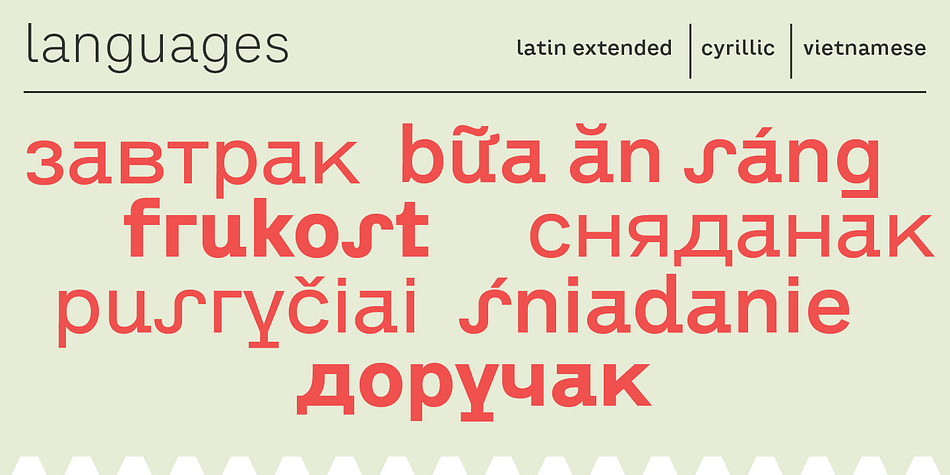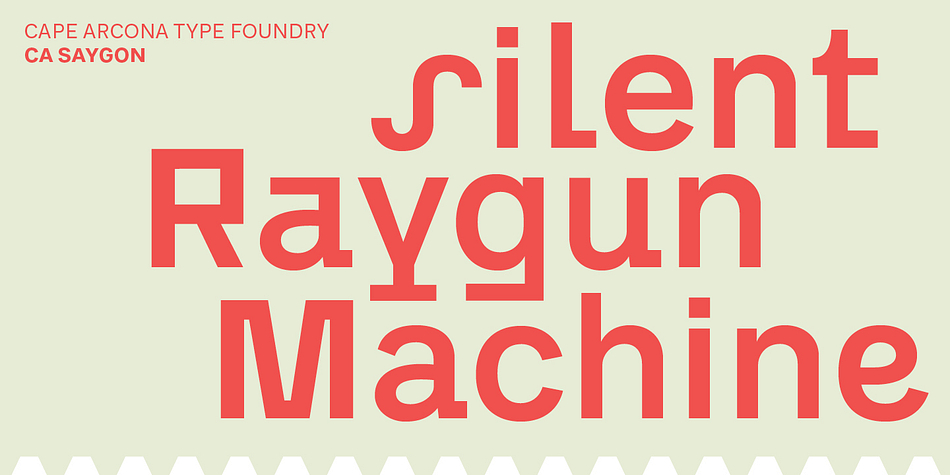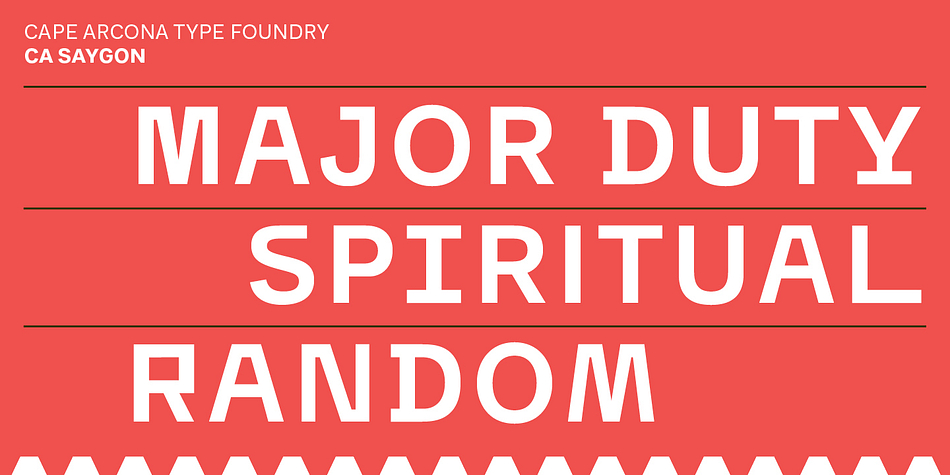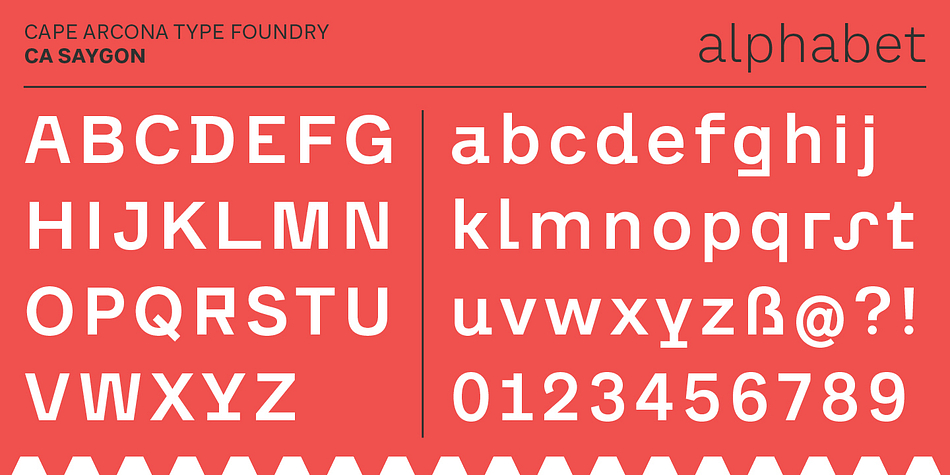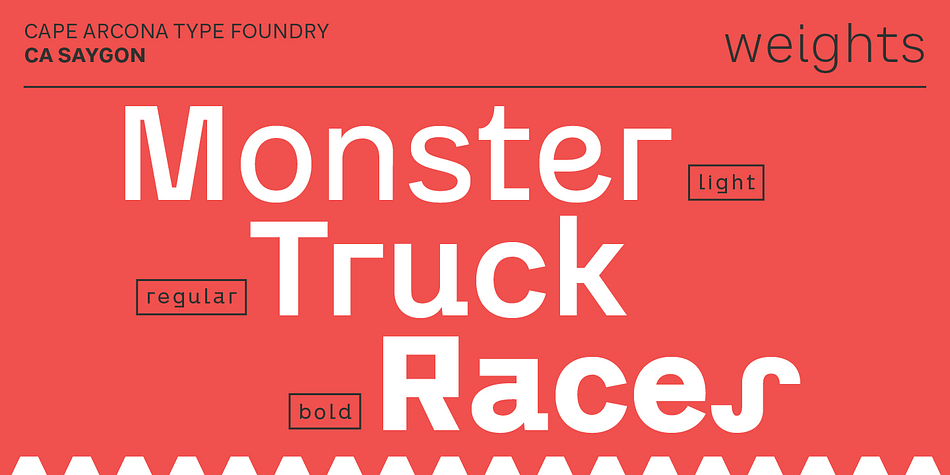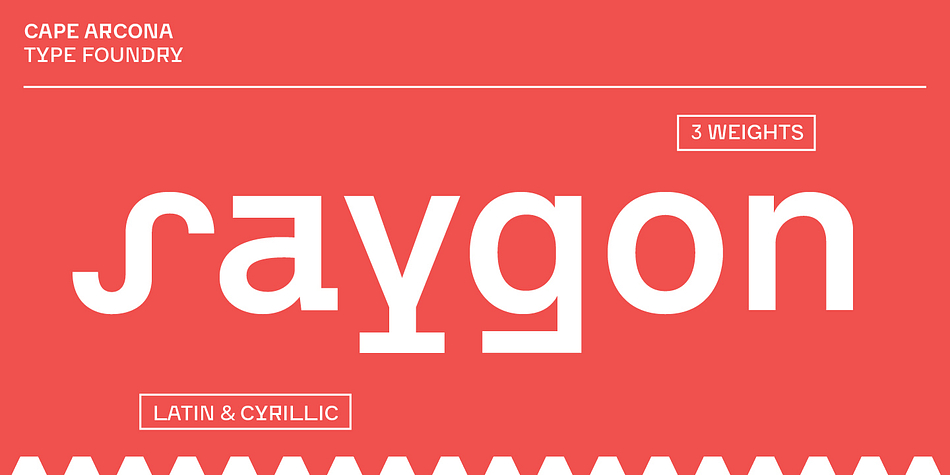
Designed by Stefan Claudius and Thomas Schostok, CA Saygon is a display sans font family. This typeface has three styles and was published by Cape Arcona Type Foundry.
CA Saygon was originally conceived for a large corporate design project, but when it turned out that it would never be realized, the way was clear to further develop the typeface for a wider audience.
The striking design was intended to reflect the cultural ruptures in a society after post-modernism, achieved through a seemingly random encounter of different formal concepts. In fact, there is a careful consideration behind this. At the beginning of the design process there were countless different sketches and ideas on how the letters could be thrown out of their normal path. But as time went by, the choice was reduced to a point where the typeface was coherent but still irritating enough to captivate the eye. In addition, the font has several alternative letter forms that can be achieved via the Stylistic Sets or the Glyph Palette.
The language support of the typeface is quite comprehensive – besides Latin Extended there are also Cyrillic and Vietnamese. Various OpenType features complete the professional overall picture, such as superiors and inferiors, fractions and proportional and tabular numbers.